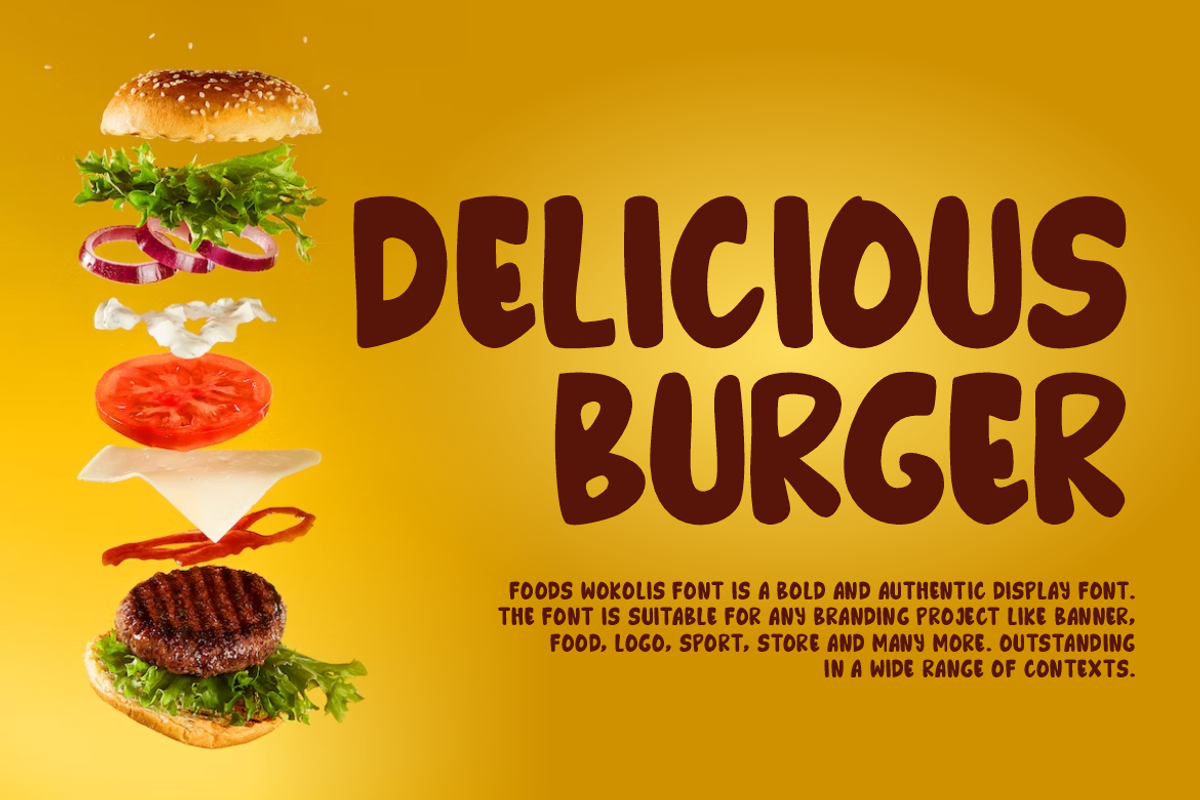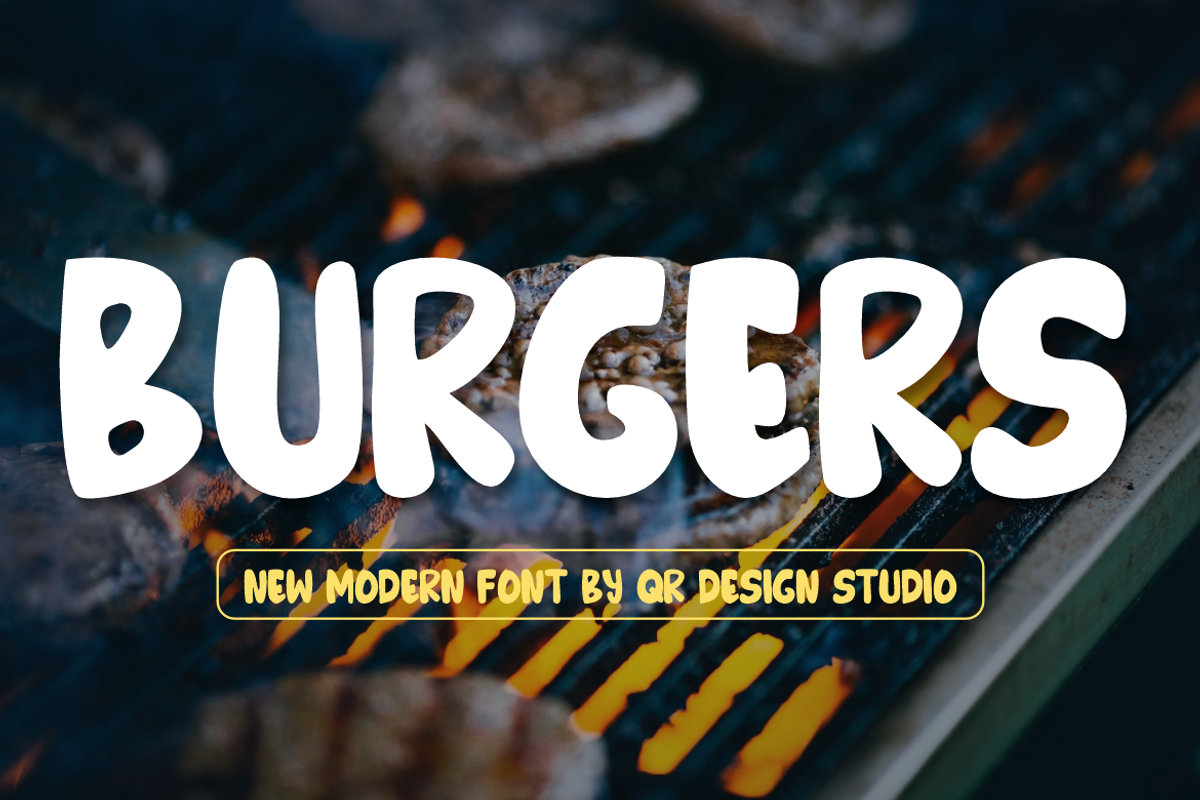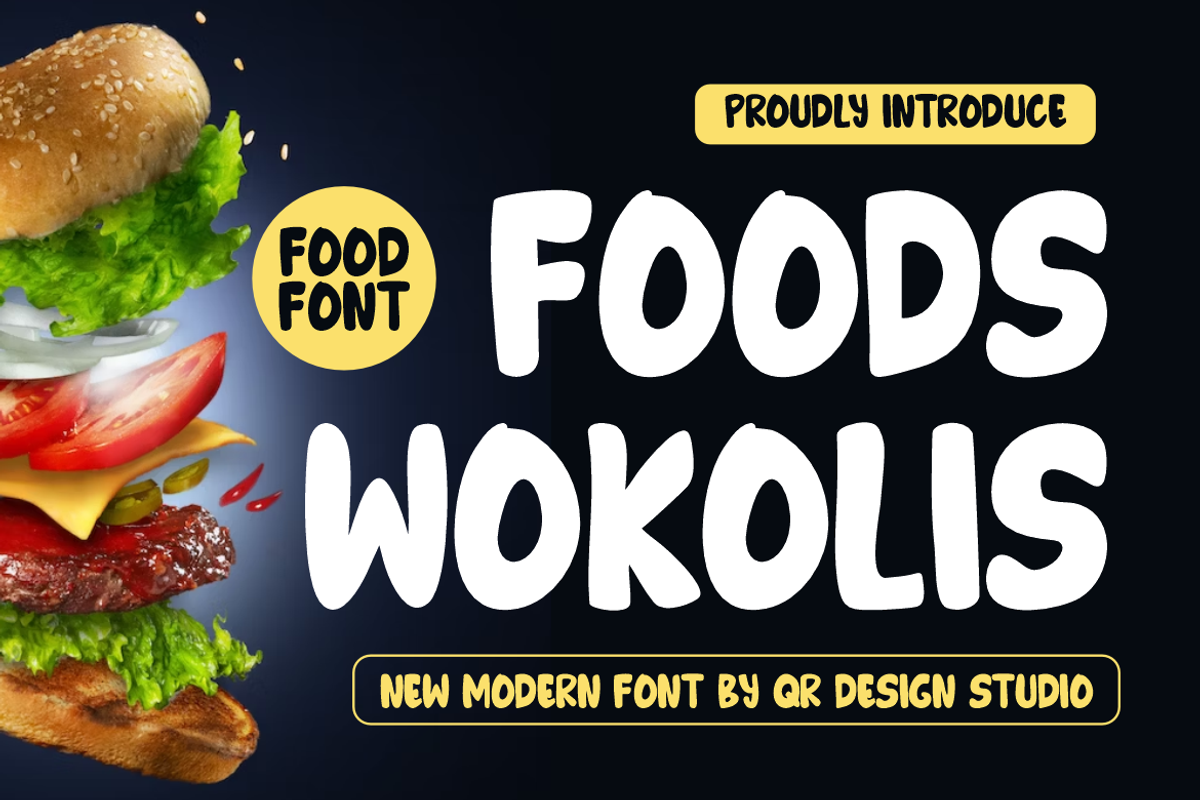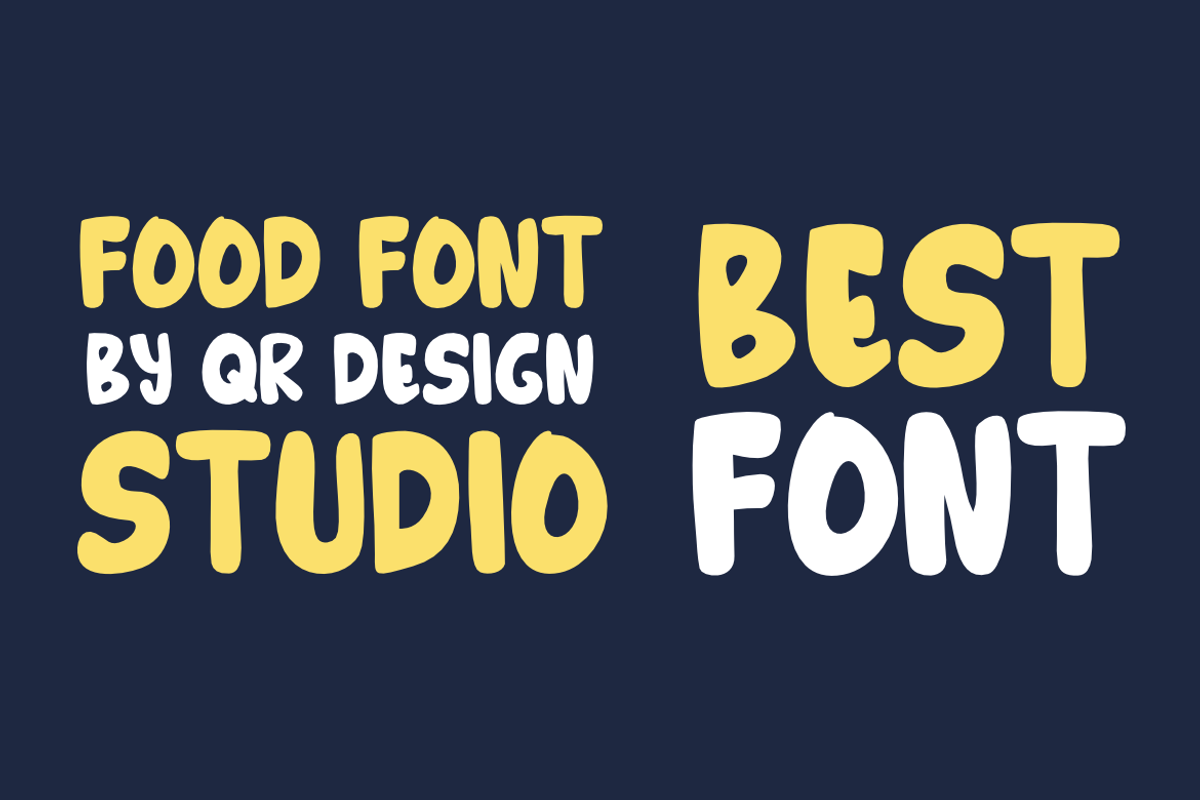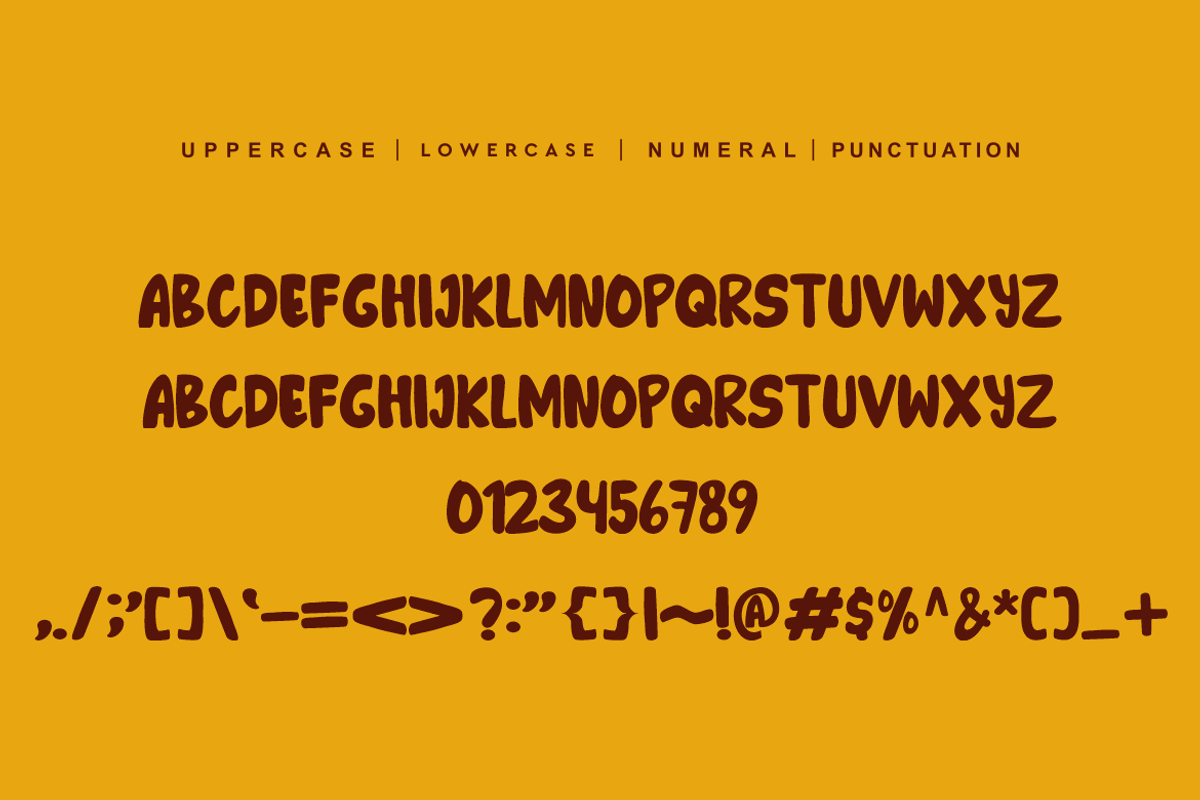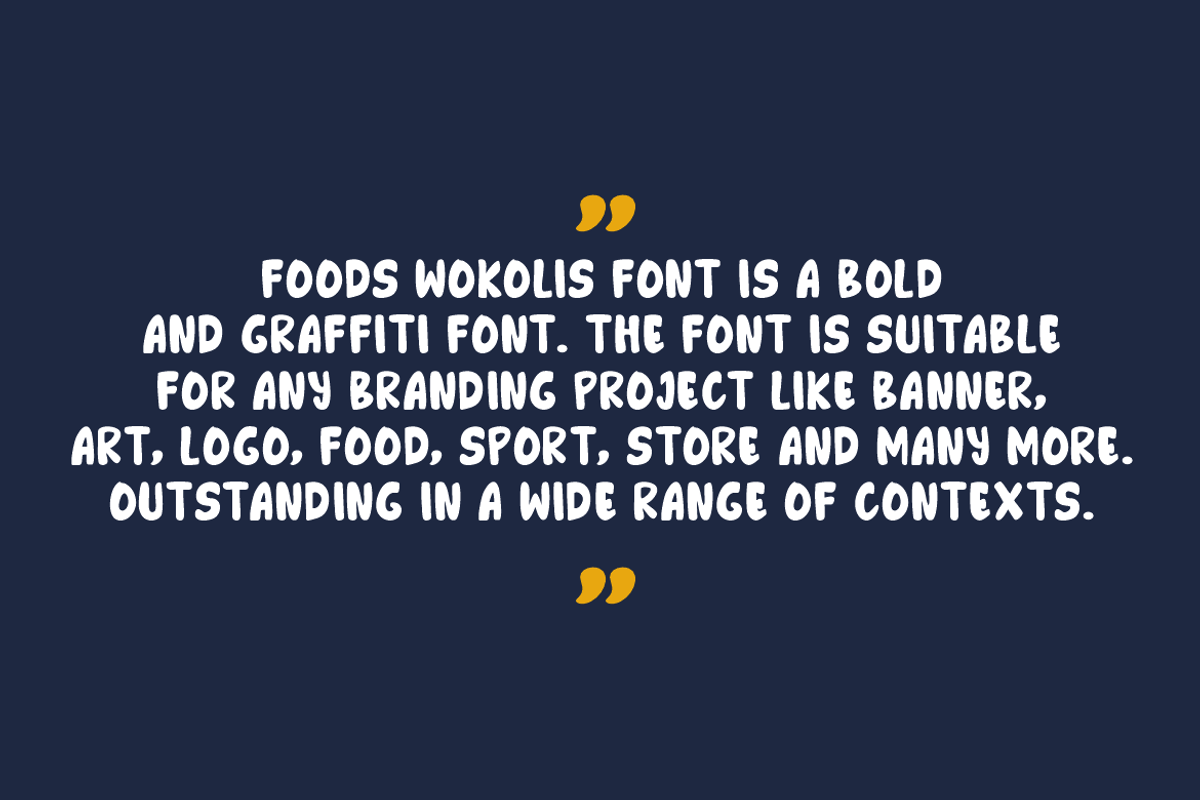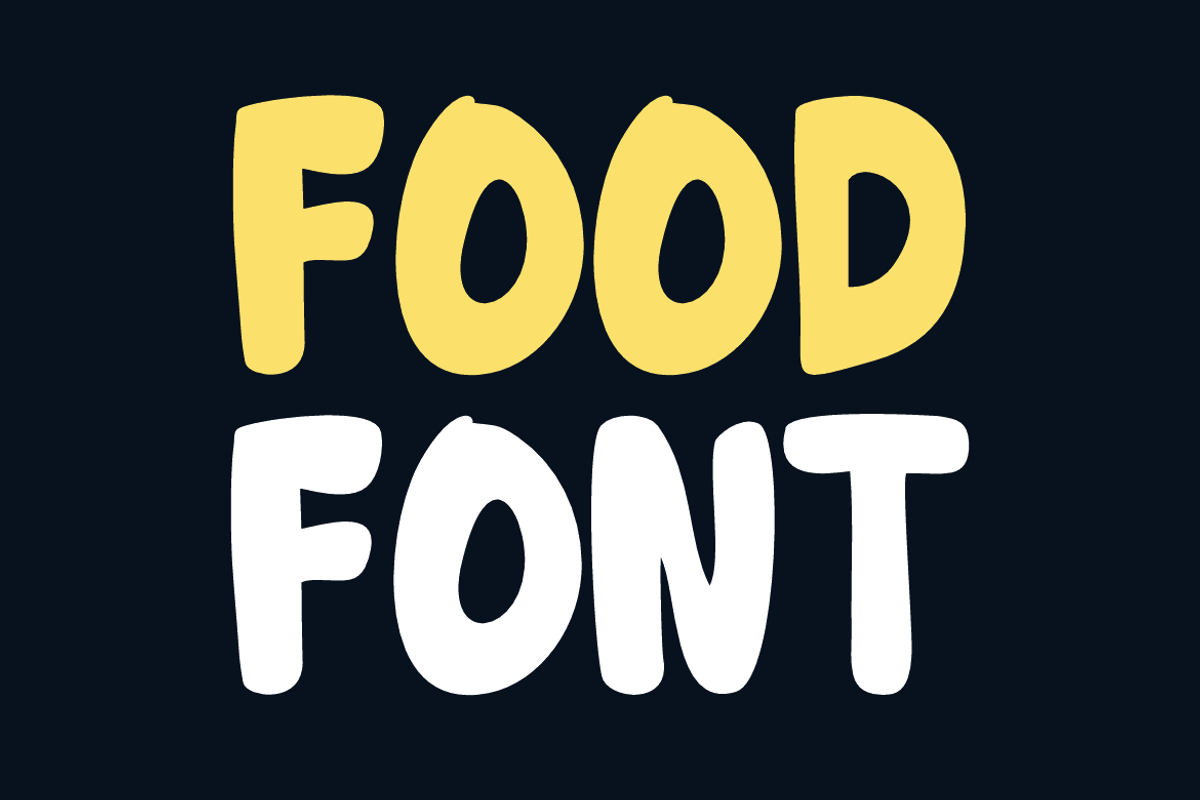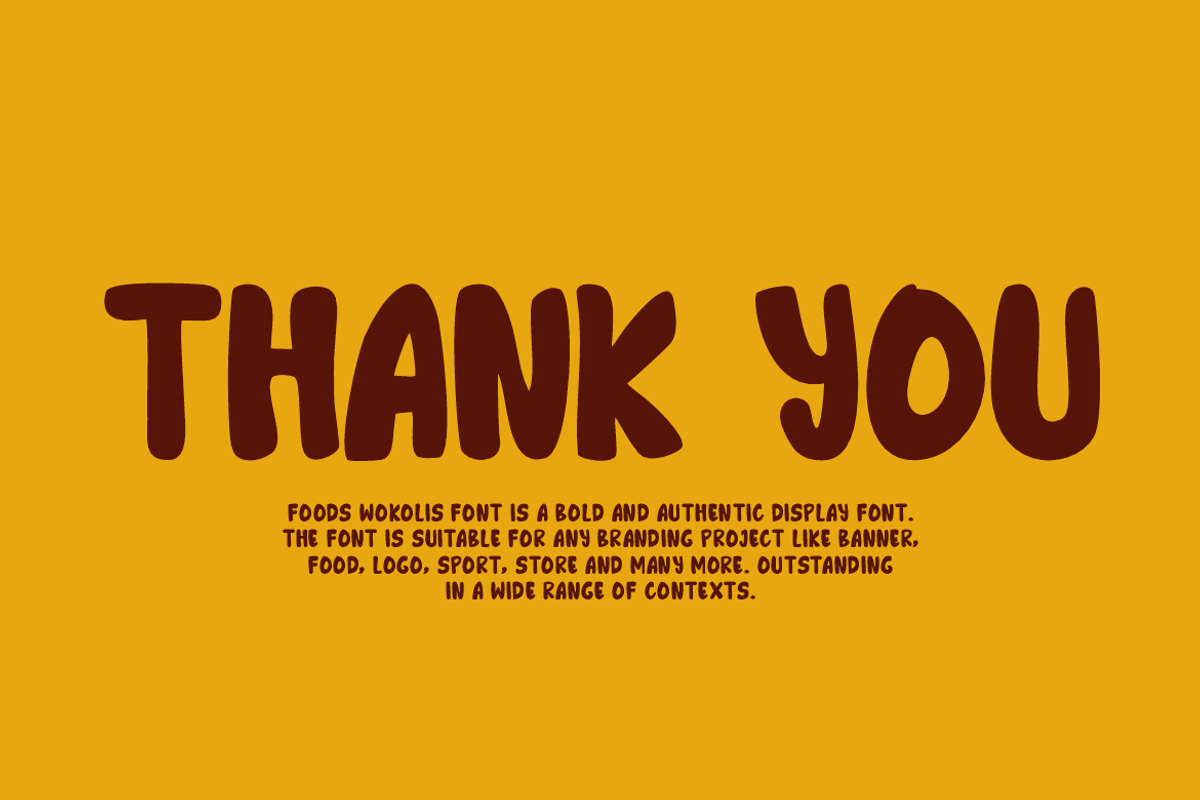
Foods Wokolis
Foods Wokolis Font is a bold and authentic display font. The font is suitable for any branding project like logo, food, and many more. Outstanding in a wide range of contexts.